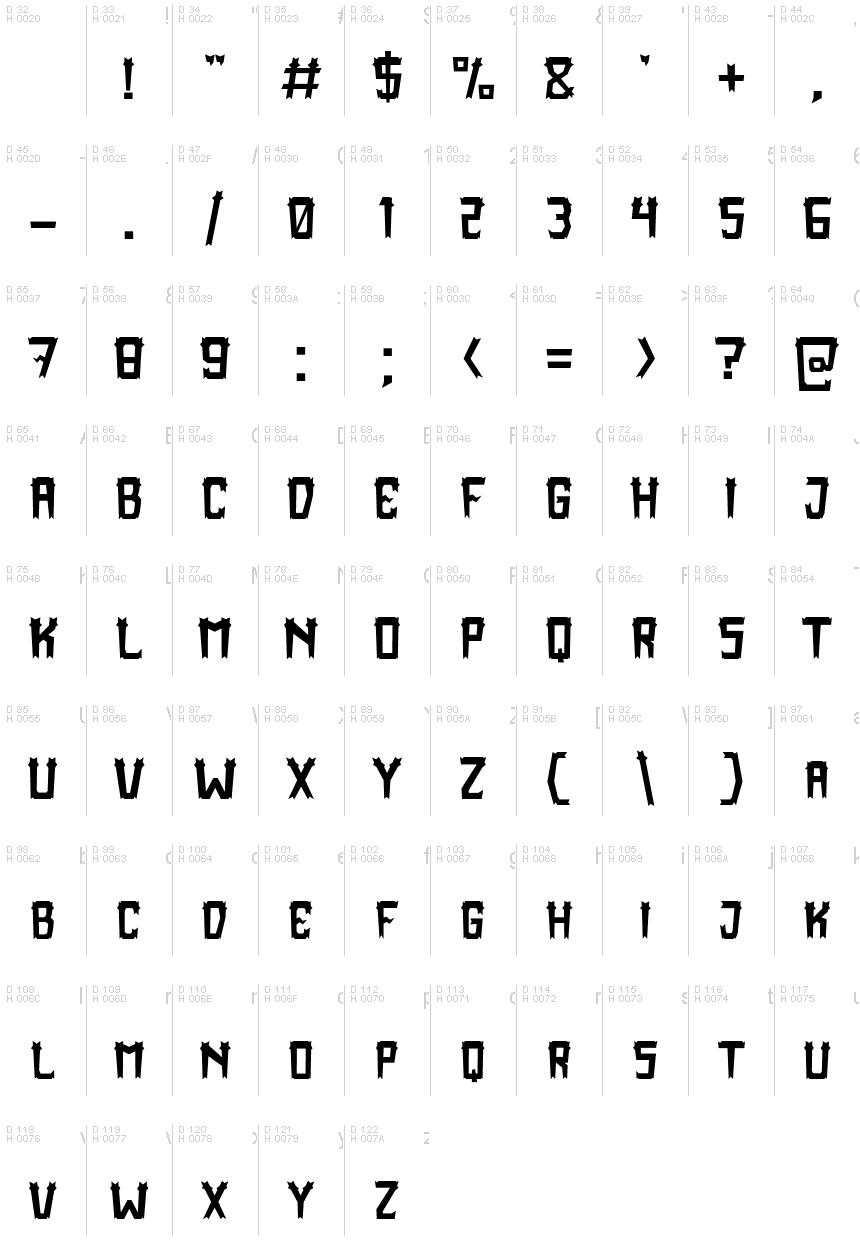
Kind Monster
Looking for a font that is both bold and playful? Look no further than Kind Monster by Kong Font. This display font is perfect for eye-catching headlines, posters, and logos. Its decorative style adds a touch of personality to any design project, making it ideal for children's books or whimsical branding campaigns. The bold weight ensures that your message will be seen loud and clear. Whether you're designing a website or creating marketing materials, Kind Monster is the perfect choice for projects that need a little bit of extra flair.